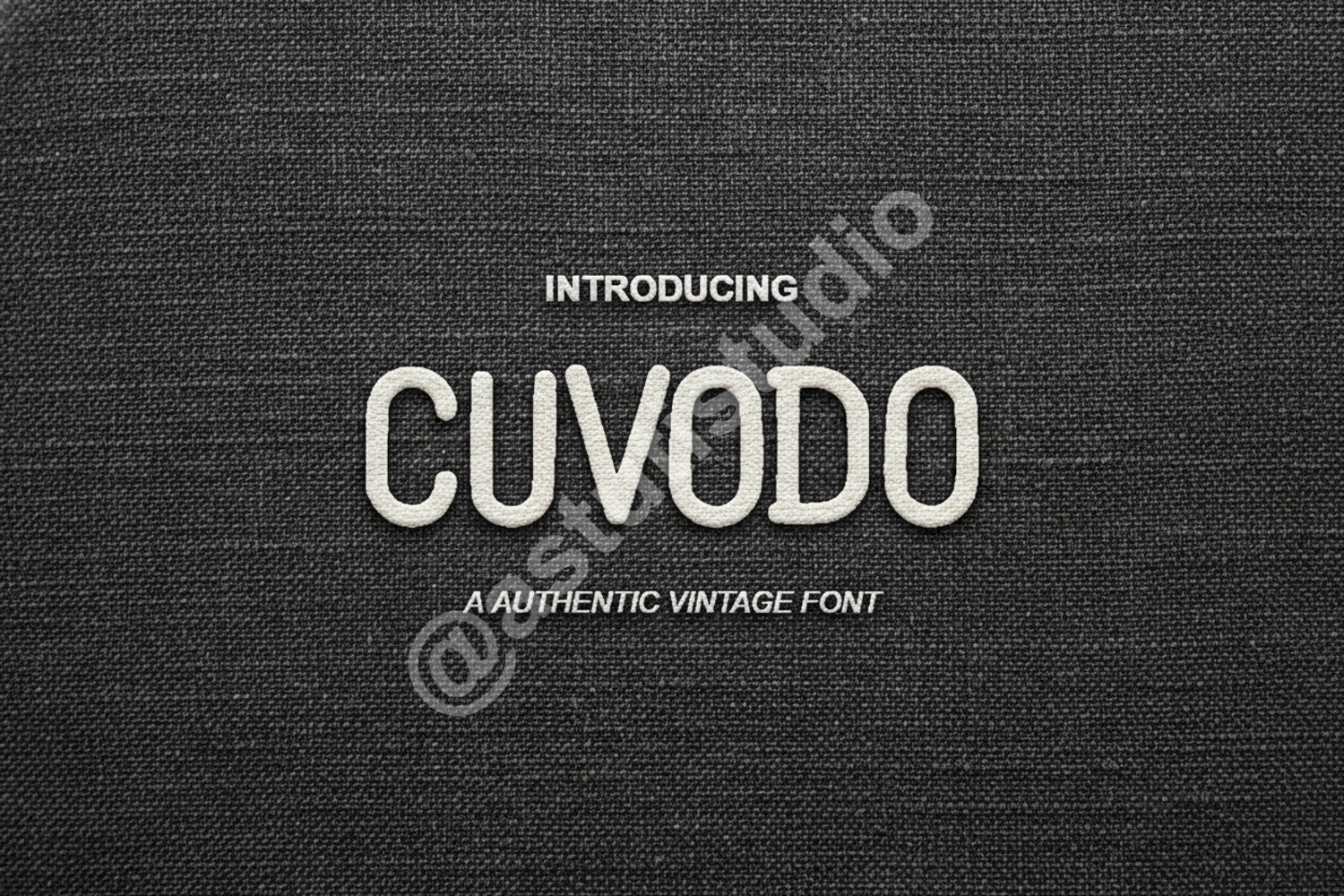
Cuvodo - Modern Geometric Sans Serif Typeface
Cuvodo
Cuvodo is a premium, high-quality typeface meticulously crafted for modern creators who demand excellence. This font strikes a perfect balance between clean geometric precision and contemporary elegance, ensuring your projects stand out with a professional and sophisticated edge. Whether you are building a brand from the ground up or refining an existing aesthetic, Cuvodo provides the versatility needed for high-end design.
- Professional Branding: Create a lasting impression with a clean and authoritative brand identity.
- Minimalist Logos: Perfect for tech startups, fashion labels, and creative agencies.
- Editorial Layouts: Enhances readability and aesthetic appeal in magazines, lookbooks, and digital publications.
- Wedding Invitations: Add a touch of modern luxury to stationery and event materials.
- Luxury Packaging: Elevate your product presentation with high-end typography that speaks to quality.